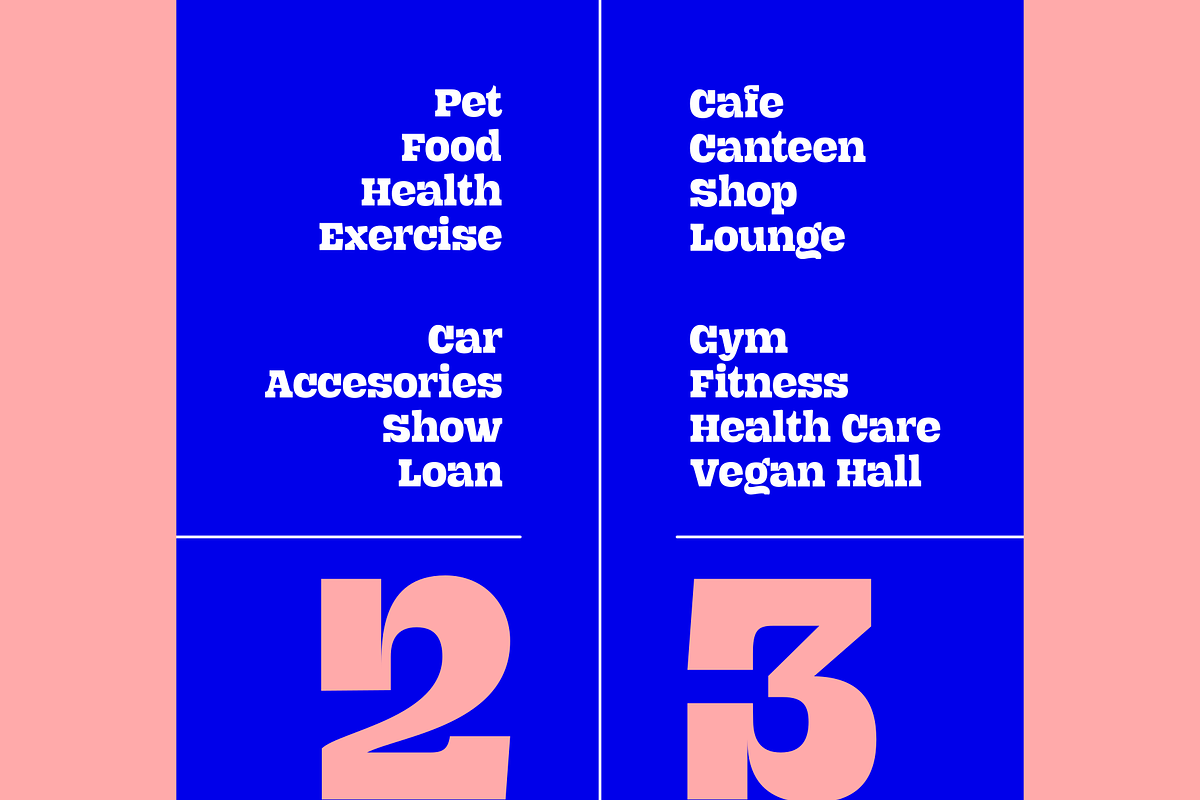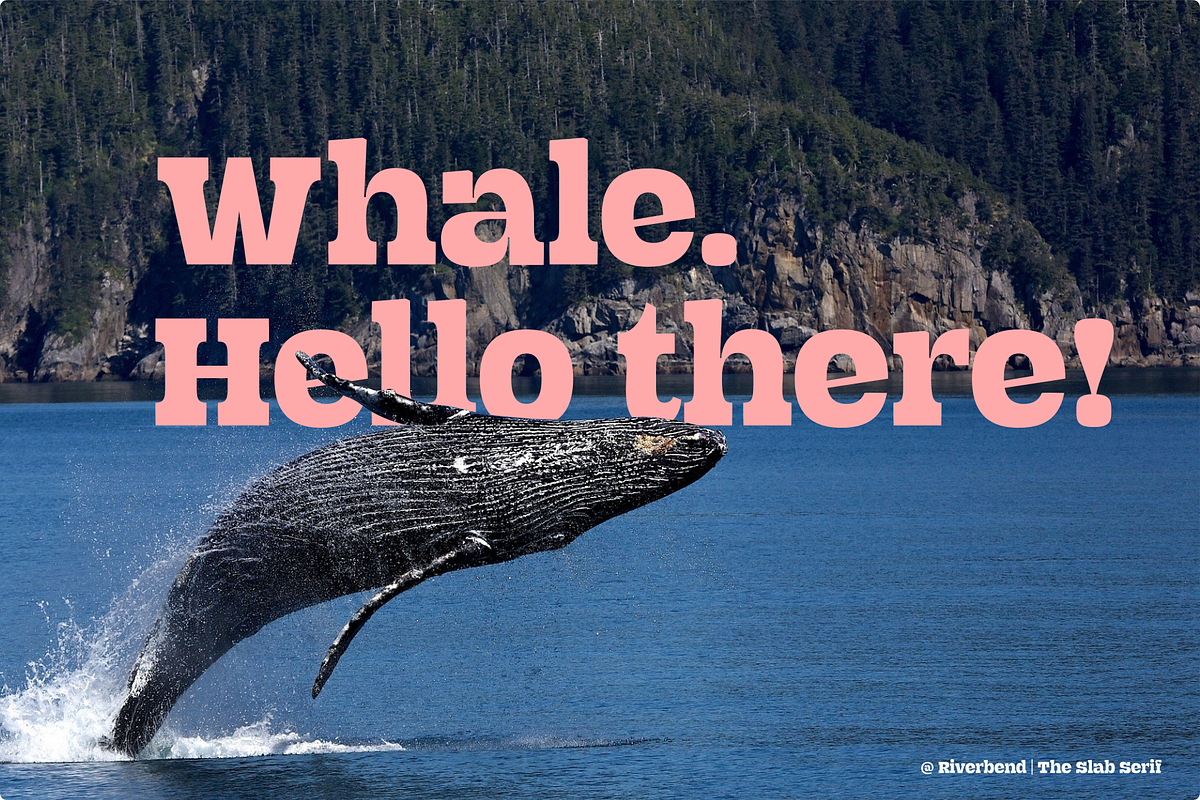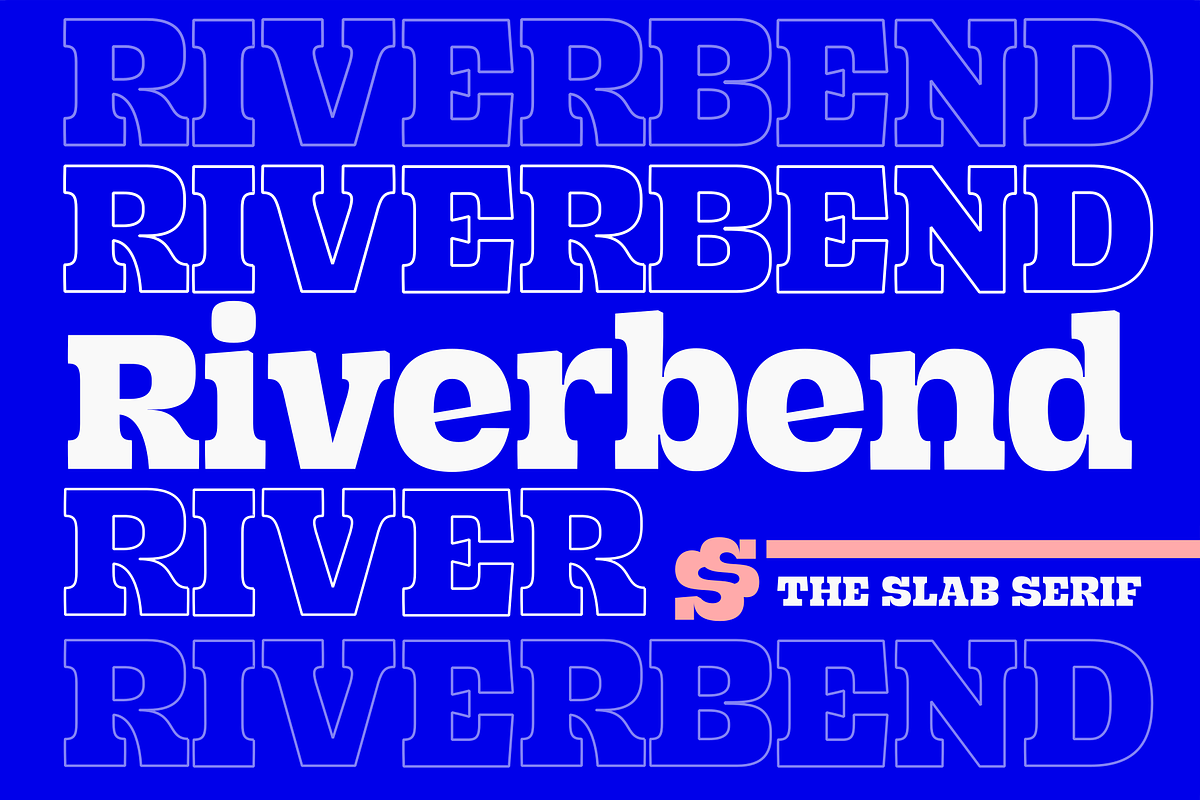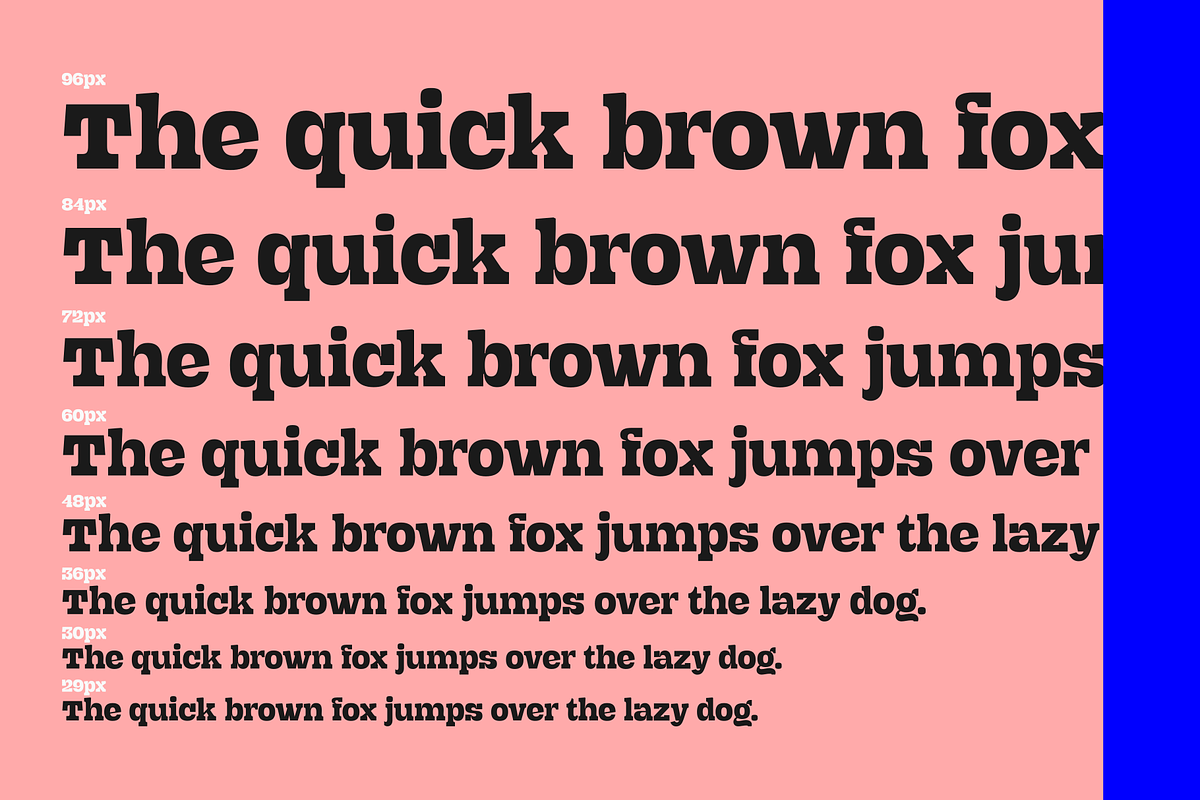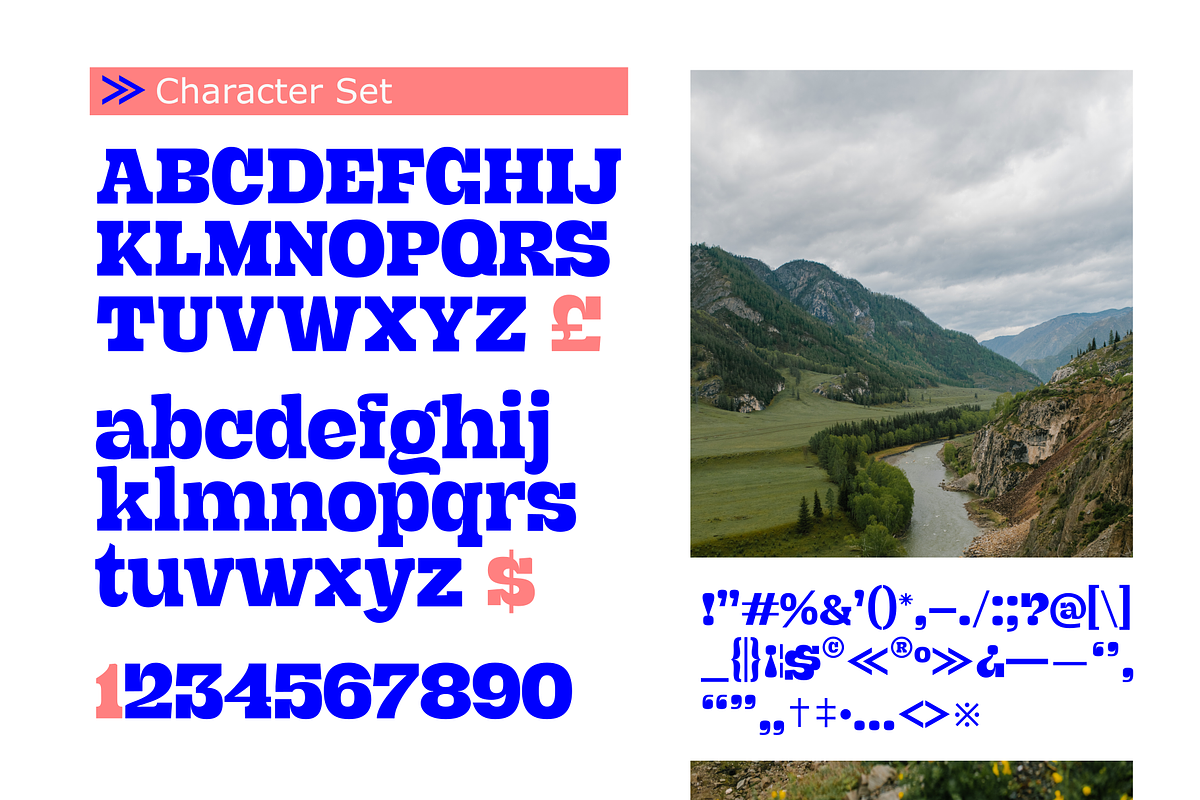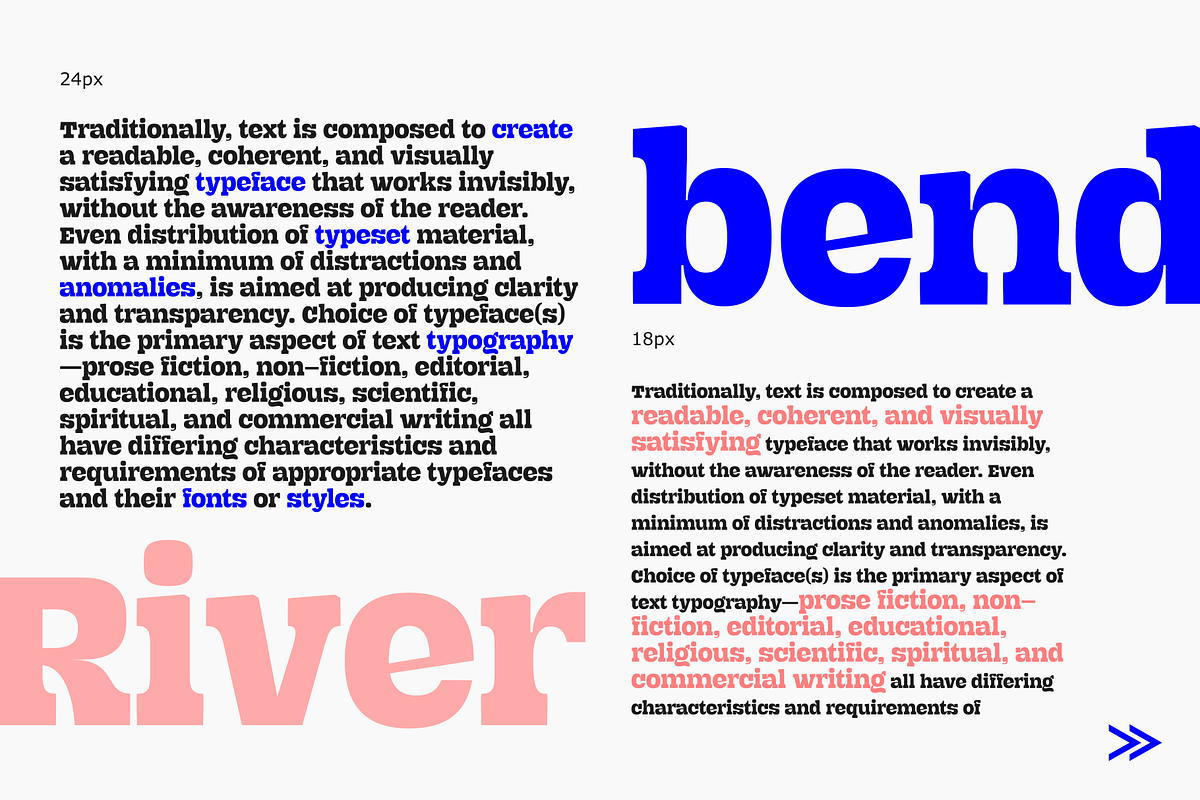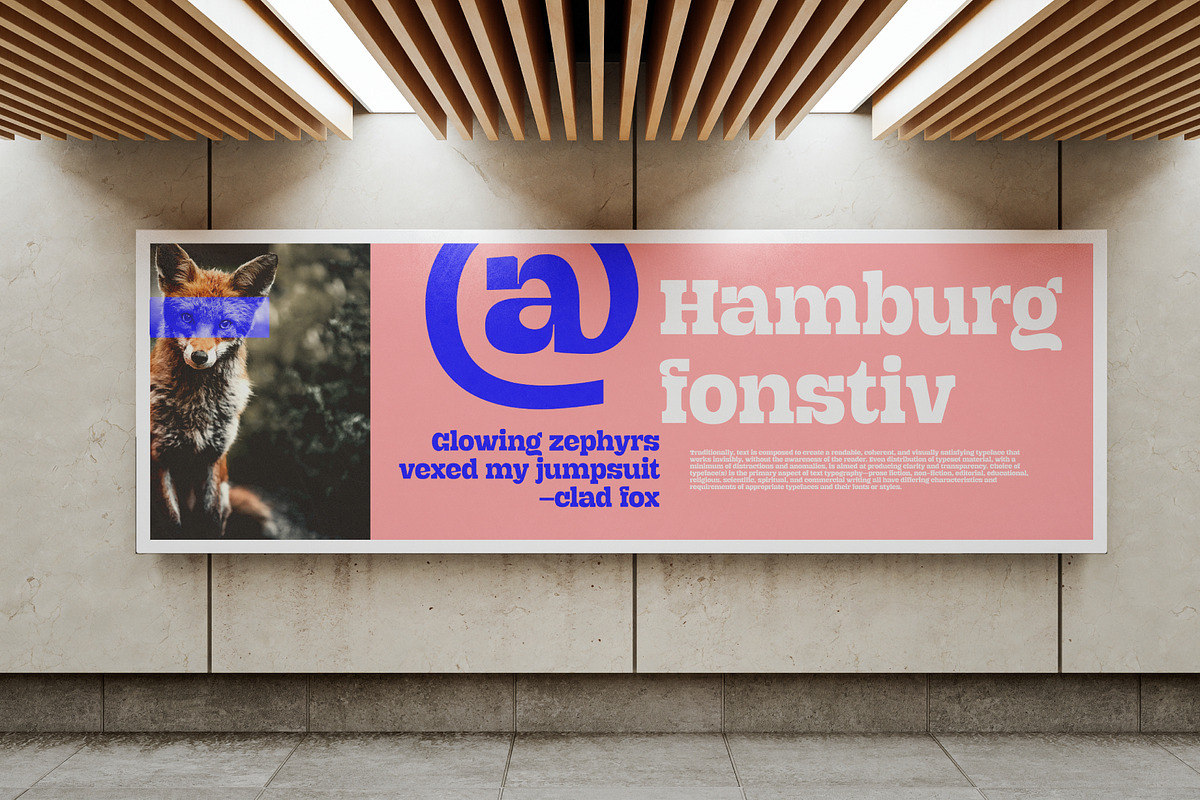
Riverbend
Riverbend is a typeface full of spirit and energy, embodying the distinctive retro aesthetic. With playful curves and bold, striking strokes, this font adds a touch of nostalgia and creativity to various design projects. It's perfect for attention-grabbing headlines, posters, and artistic displays.
This is a nice bold, blocky, typeface. I've used it for Western novels and also period pieces and found it versatile and attention-getting. Carries colour well and can be manipulated to appear aged, modern, or historic.